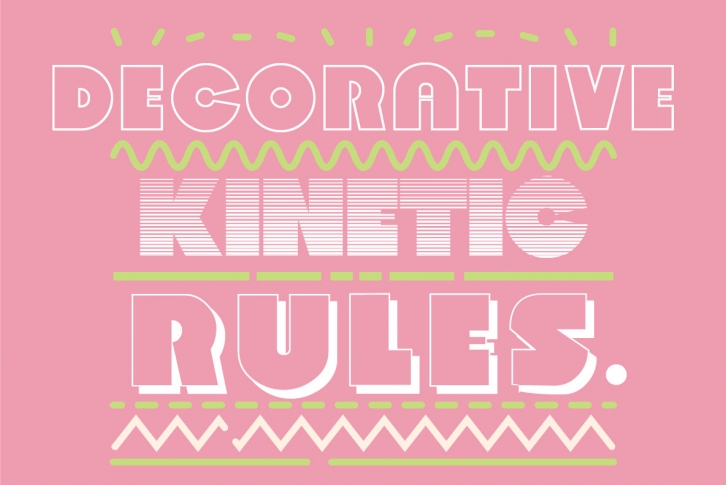
Perper Bloeren is the 2015 update to Ian Lynam's typeface Rubber Vloeren. It is an extremely heavy display typeface equipped with 10 different stylistic sets accessible via OpenType.
The stylistic sets:
- Solid
- Incised 1
- Incised 2
- Outline 1
- Outline 2
- Drop shadow
- Campus
- Miami Sunrise
- Rotated
- Hollywood Dusk
Perper Bloeren also comes with a set of six decorative kinetic rules accessible via OpenType, as well: wiggly lines, semaphor, standard dashes, sine waves, Mexican jumping beans, and more!